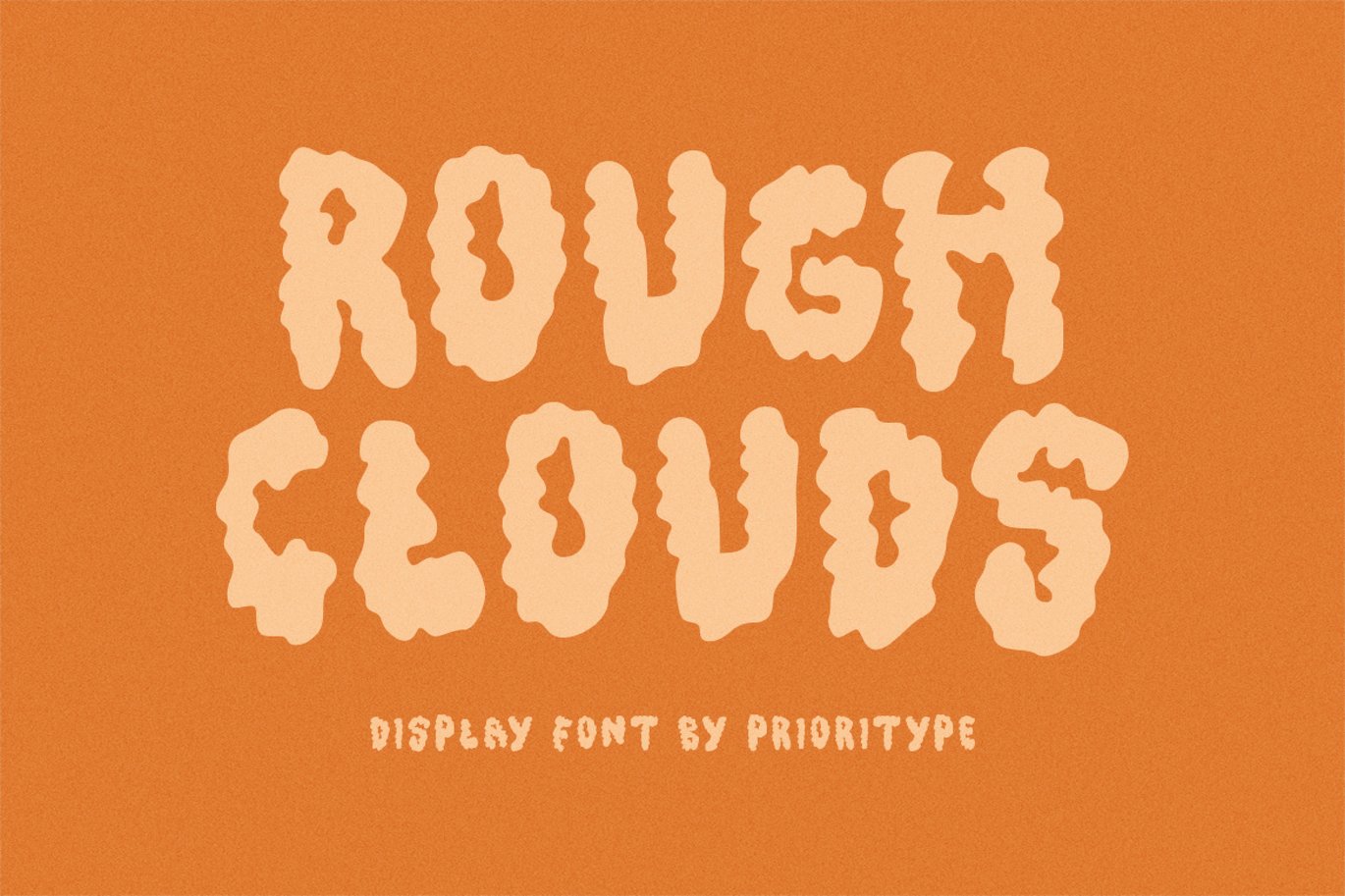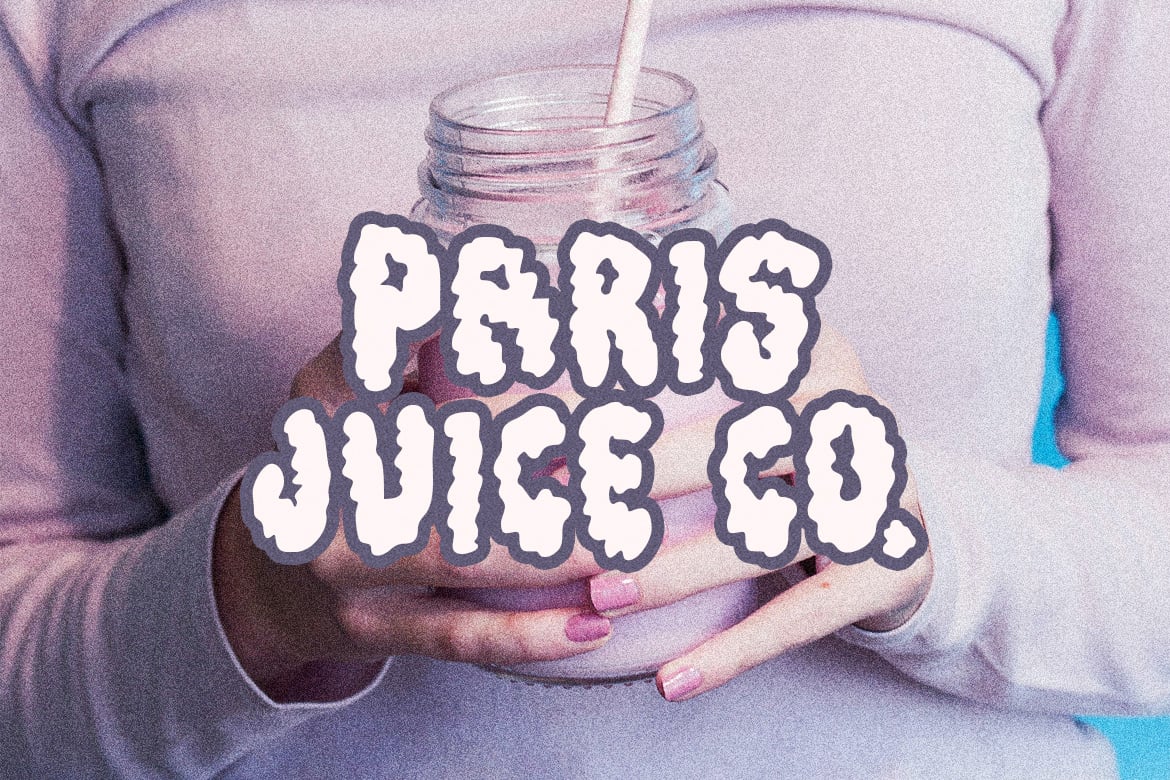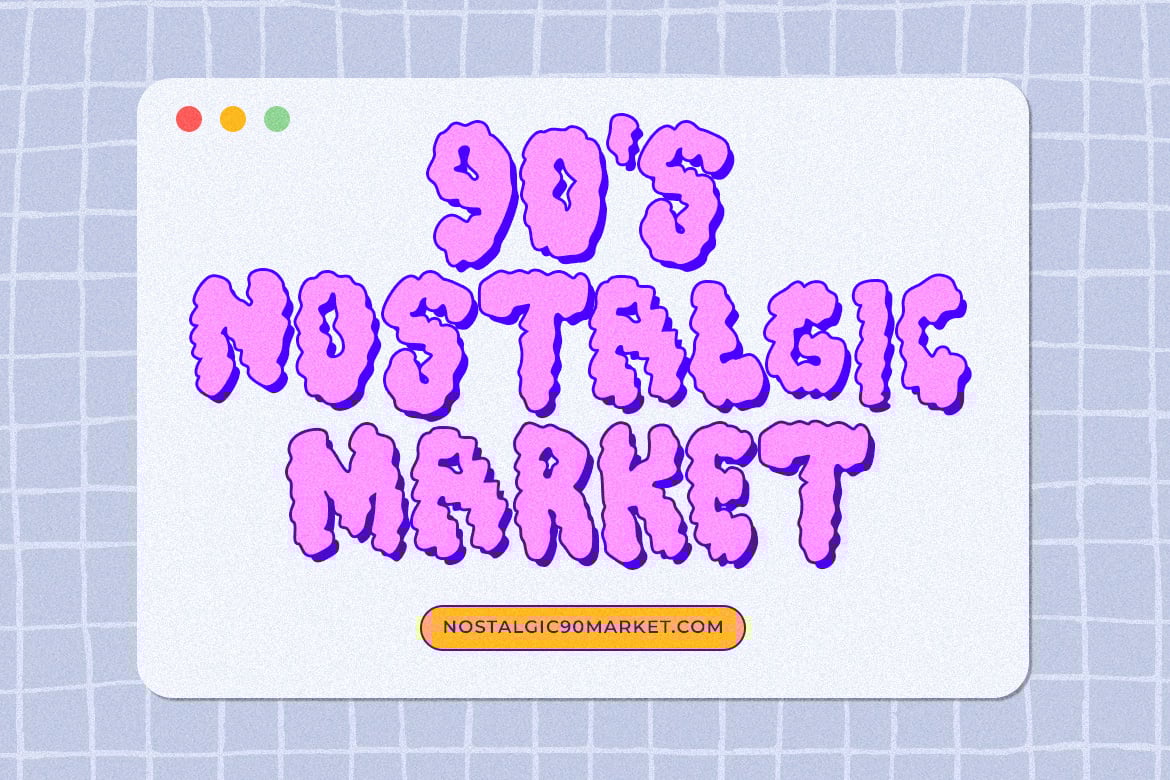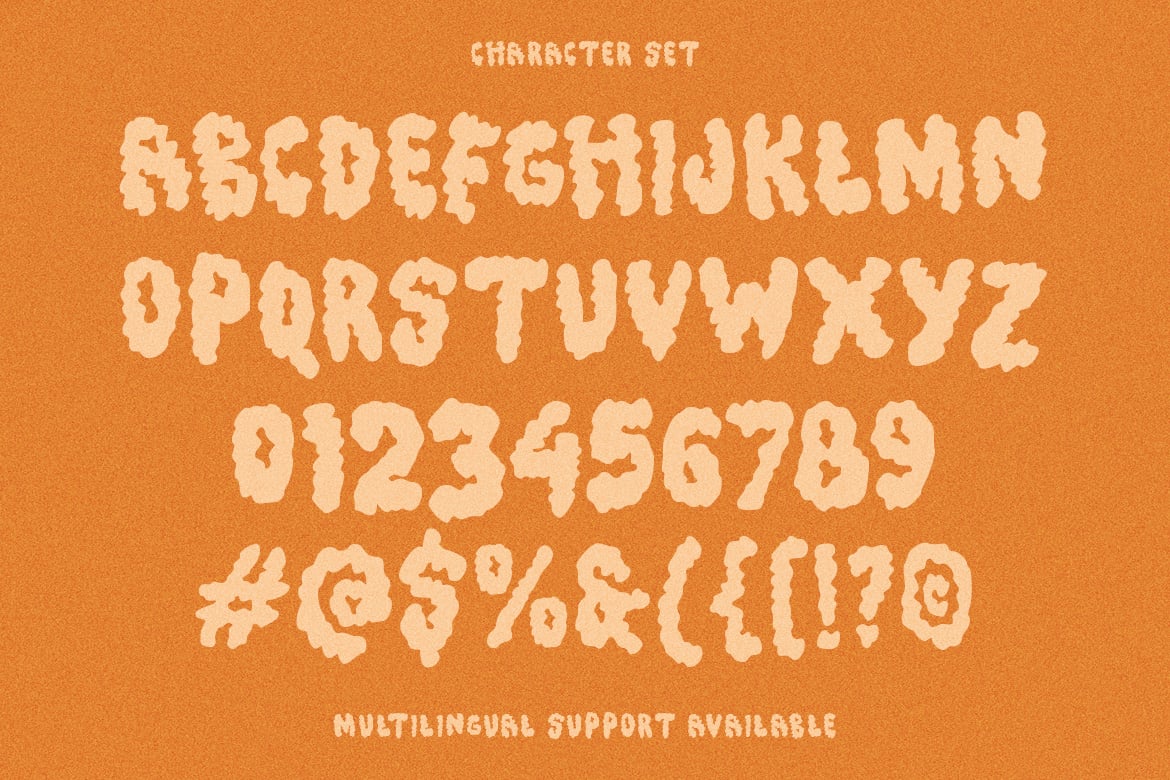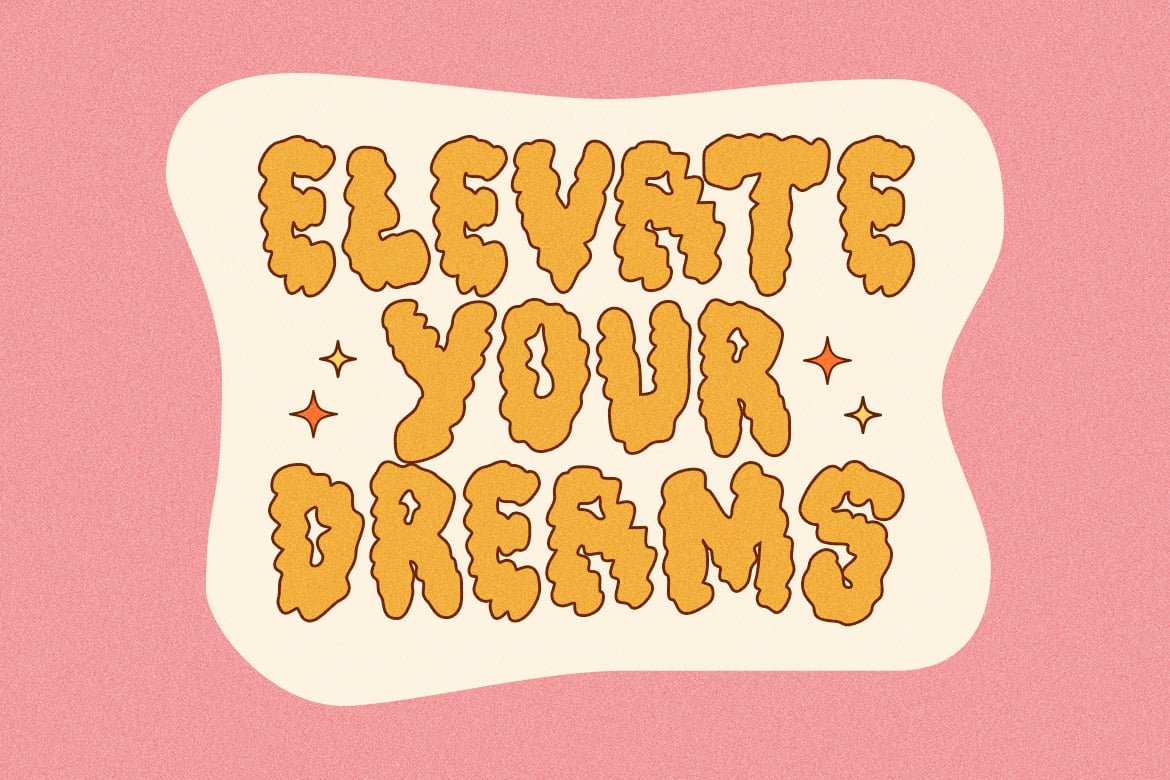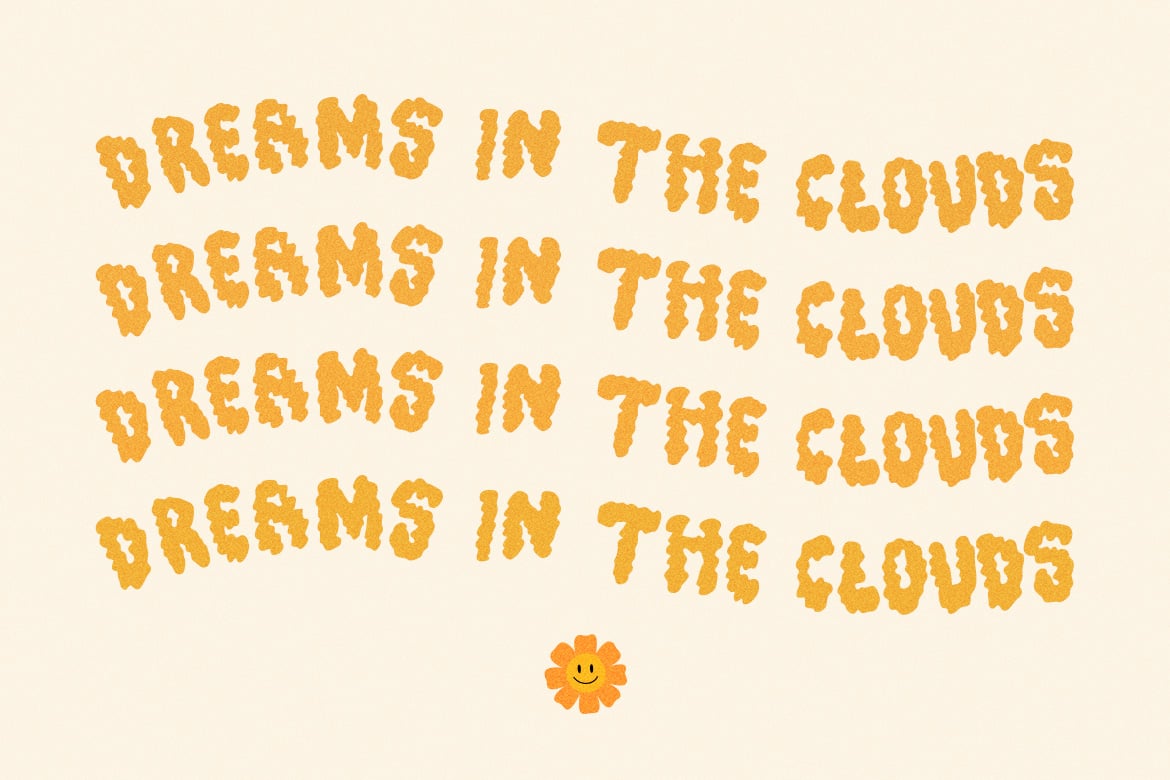
Rough Clouds Display Font
Rough Clouds is a hand-drawn display font inspired by groovy designs, featuring a unique, rough cloud-like appearance. Perfect for posters, branding, and social media posts. This font brings a playful and distinctive vibe to your projects.
- Features: Uppercase, Lowercase, Numeral, Punctuation & Multilingual.